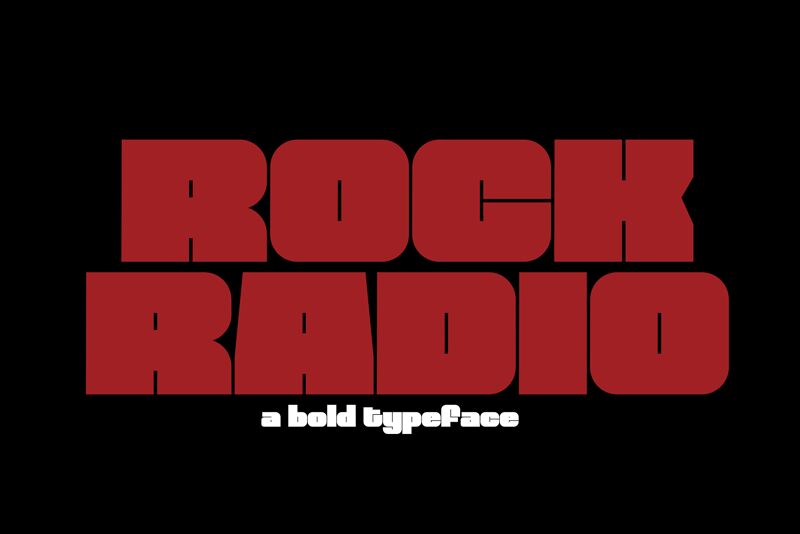
Rock Radio Slant is an ultra-bold, extra-expanded sans serif font that adds a rebellious edge to any project.
Created by the talented designer Toko Laris Djaja, this font is perfect for music album covers, concert posters, and band logos. Its slanted style evokes a sense of energy and movement, making it ideal for sports team branding or action-packed video game titles. With its unique combination of boldness and width, Rock Radio Slant is sure to make a statement in any design that needs a touch of rock 'n' roll attitude.